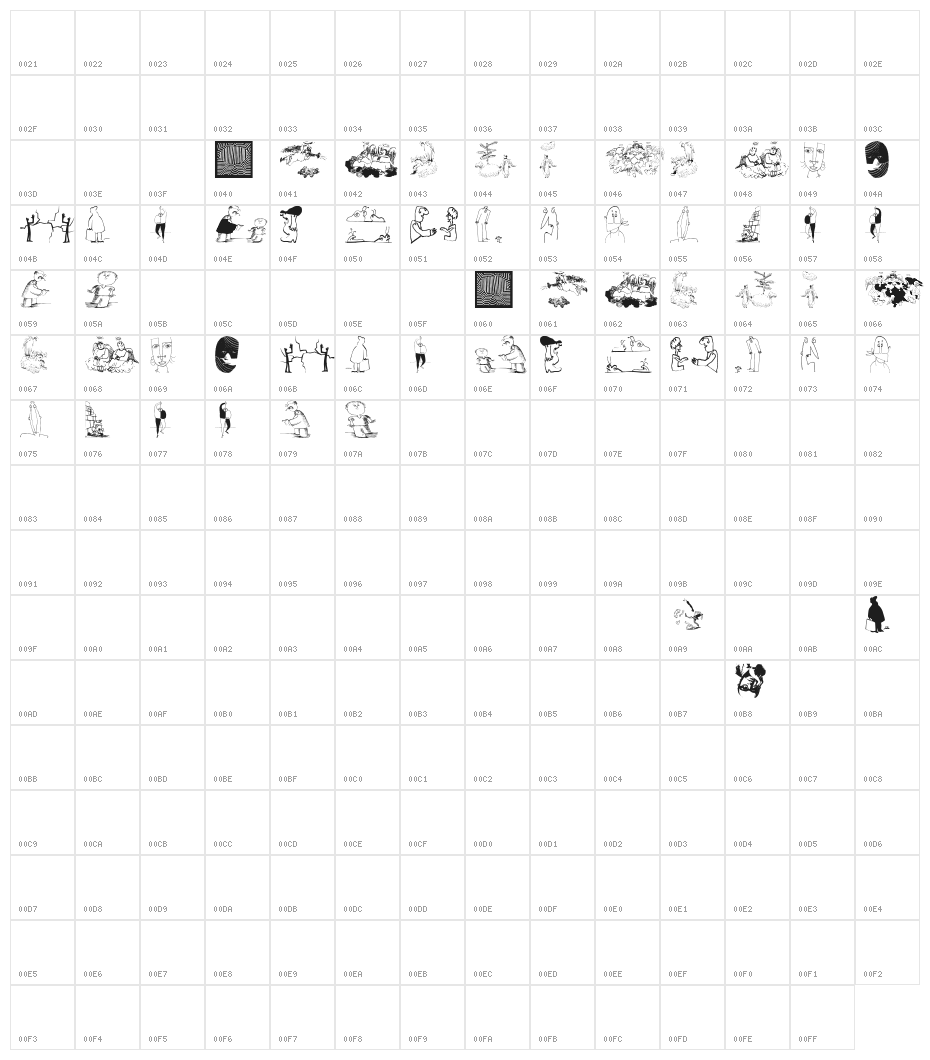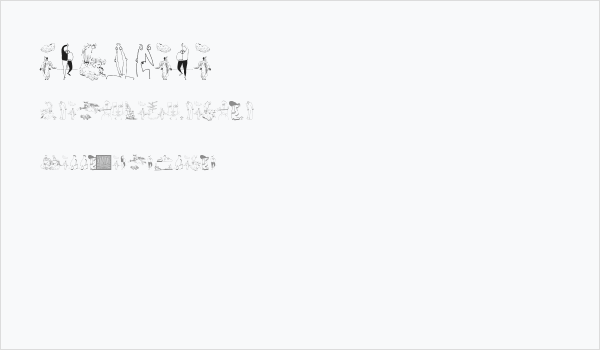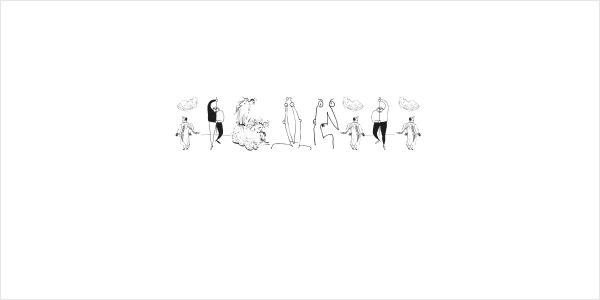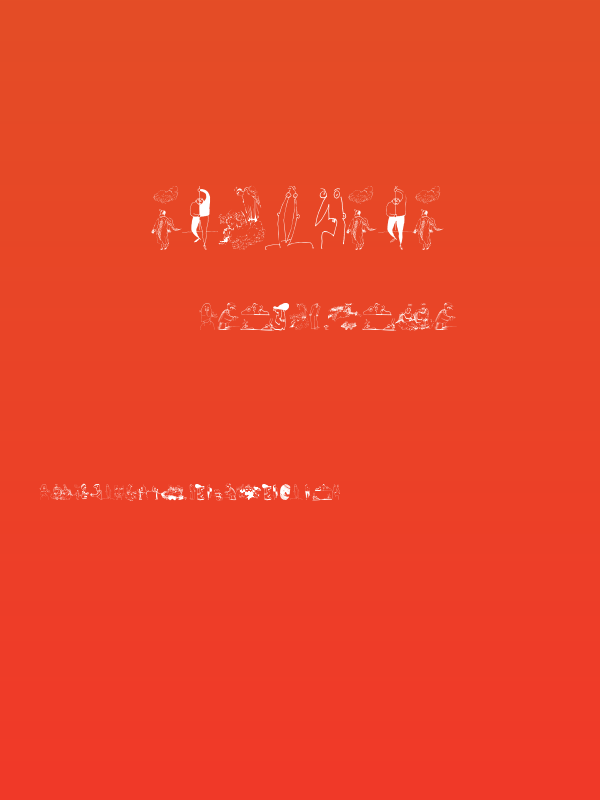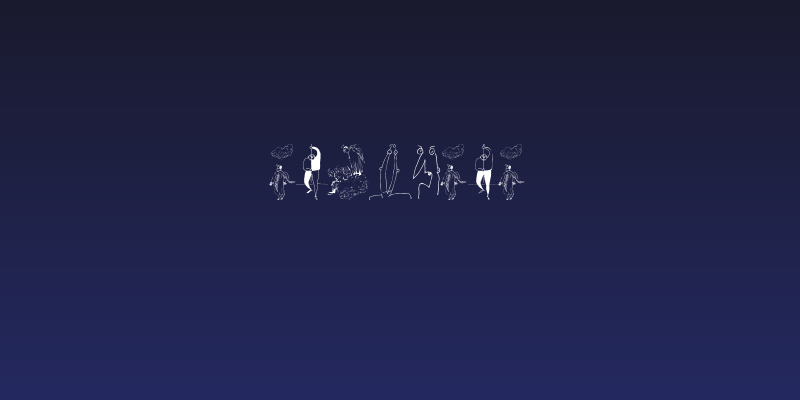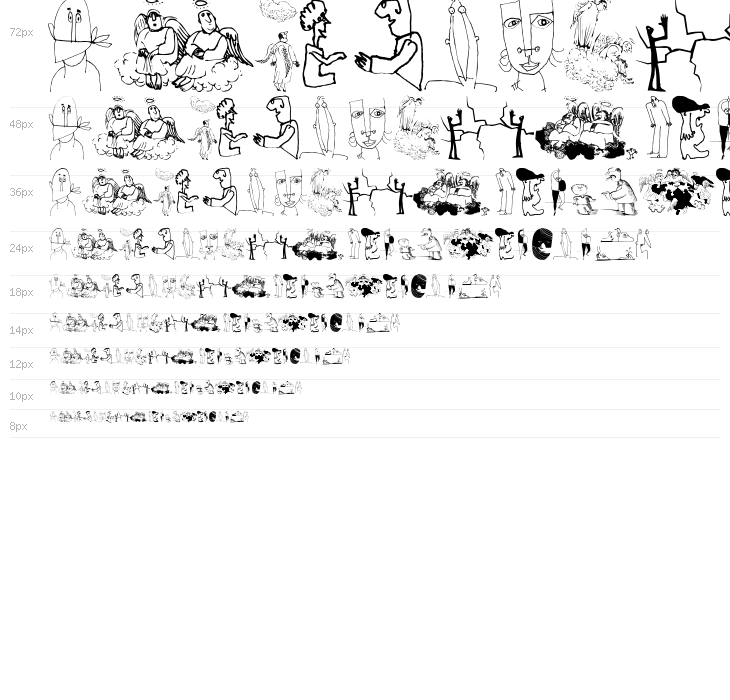
ExcuseMe Font
ExcuseMe Description
This is a highly decorative and illustrative font where each character is represented by a unique cartoon-style drawing, often depicting people or scenes. The glyphs are playful, detailed, and vary significantly in complexity and form, making them more akin to mini-illustrations than traditional letterforms.
| Overall Style | Decorative, Whimsical, Playful |
| Use Case | Logos, Posters, Children's materials, Headlines |
| Proposed Projects | Children's books, greeting cards, playful posters, comic strips, novelty branding, educational materials. |